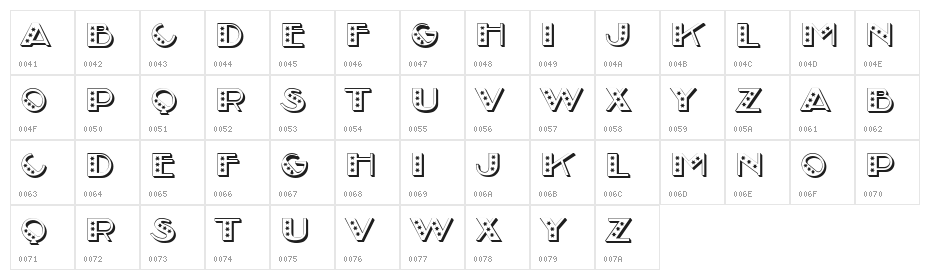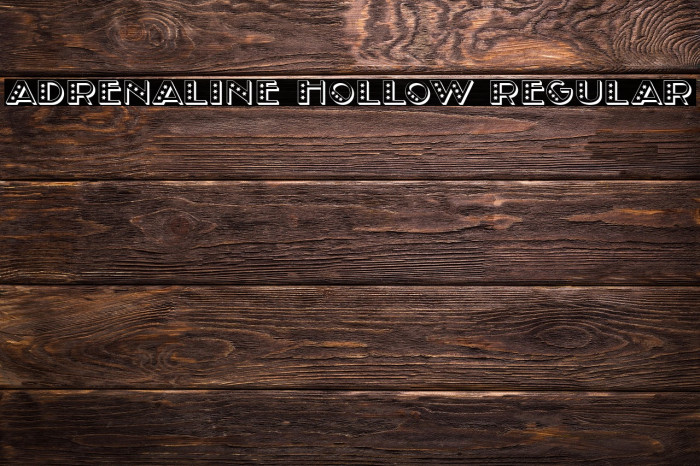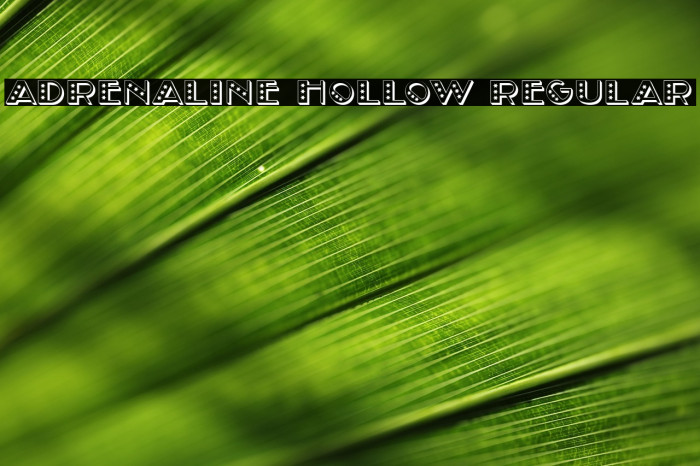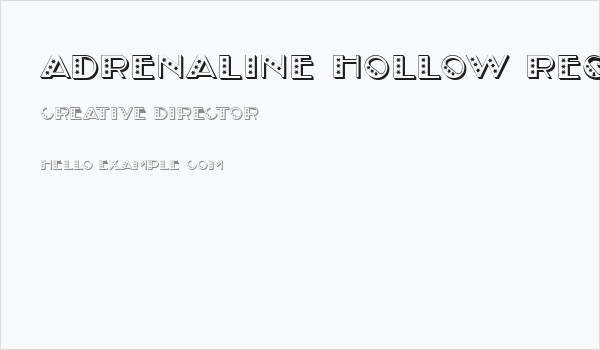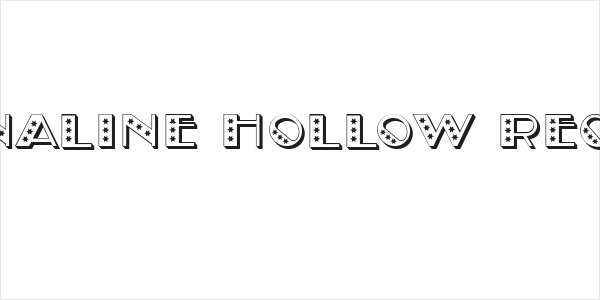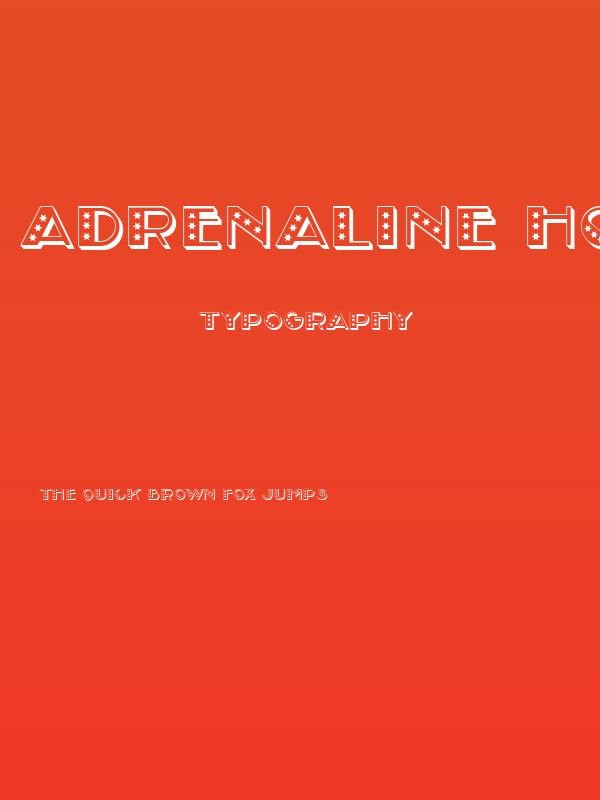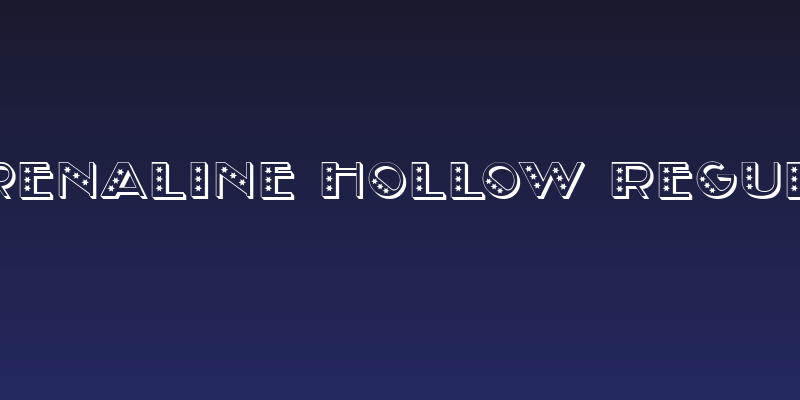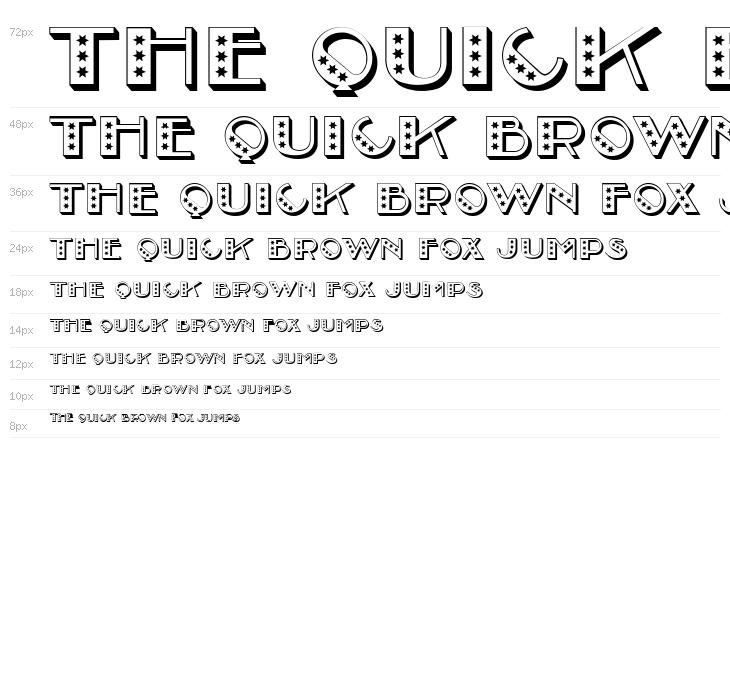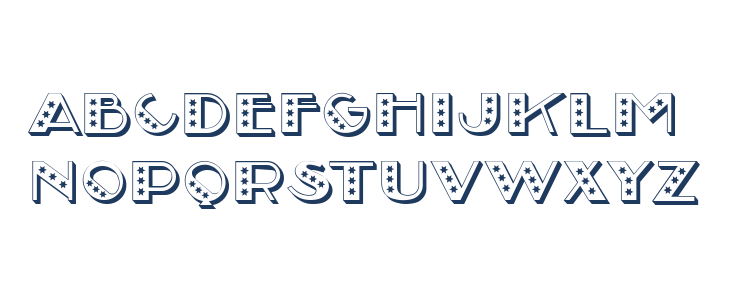
Adrenaline Hollow Regular Font
Adrenaline Hollow Regular Description
This font features a bold, decorative style with a hollow interior filled with star patterns. The characters are outlined with a thick black border, giving them a three-dimensional appearance. The uppercase letters are designed with a playful and dynamic aesthetic, making them stand out prominently. The font's unique design elements, such as the star-filled interiors and bold outlines, create a sense of excitement and energy. This makes it particularly suitable for projects that require a lively and eye-catching typeface. The font's overall look is both modern and whimsical, appealing to a wide range of creative applications.
Overall StyleModern, Whimsical
Proposed ProjectsIdeal for posters, event flyers, children's book covers, and branding materials that require a fun and energetic typeface.